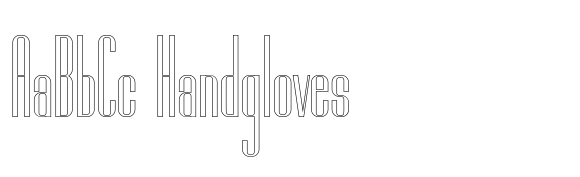
The Octagon Font Family was designed by Taufik Dwi Purnomo and published by Nariswari Creativitype. Octagon contains 2 styles and family package options. More about this family
Octagon is a basic sans serif font. This font showing a simplicity in design and readable. One of the feature is the optical kerning precisision, that supporting ellegantly in the writting result
Designers: Taufik Dwi Purnomo
Foundry: Nariswari Creativitype
Based in Ketapang Regency, West Borneo, Indonesia, Nariswari Creativitype started in 2018. Since then a lot of font produce by Nariswari Creativitype. The goal is to design new typefaces by mixing diverse influences from indonesian culture with contemporary design, and provides a variety of fonts developed for different uses and purposes.